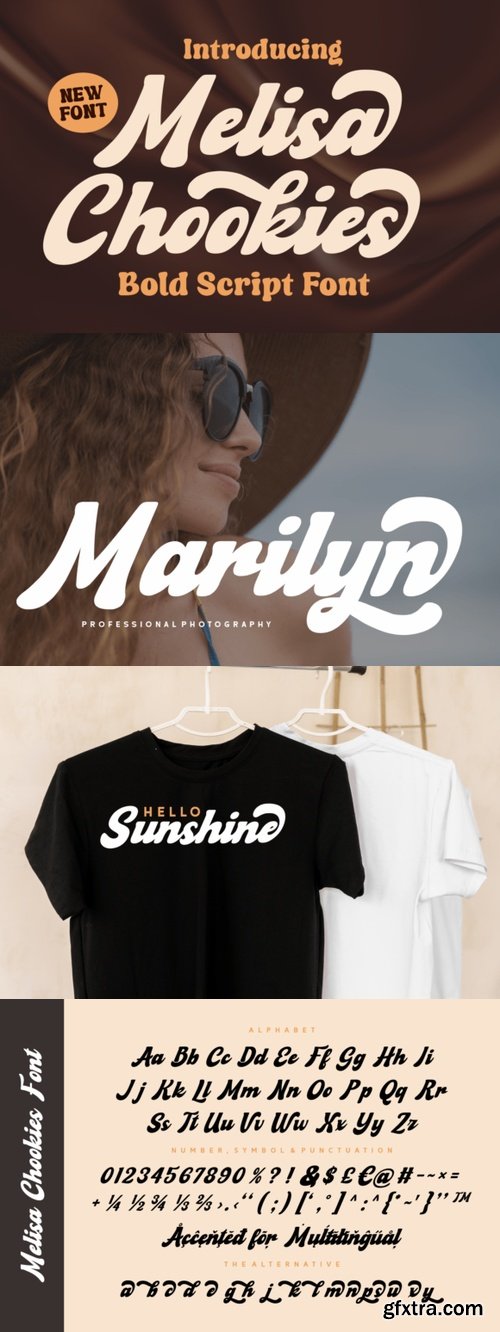
Melisa Chookies Font
- Melisa Chookies is a bold script font packed with personality and retro charm. Featuring thick strokes, playful curves, and dynamic swashes, this font is perfect for making headlines pop, designing quirky packaging, or crafting vintage-style branding. Its creamy flow and nostalgic vibe make Melisa Chookies a deliciously fun choice for any project that needs a bold, memorable touch.